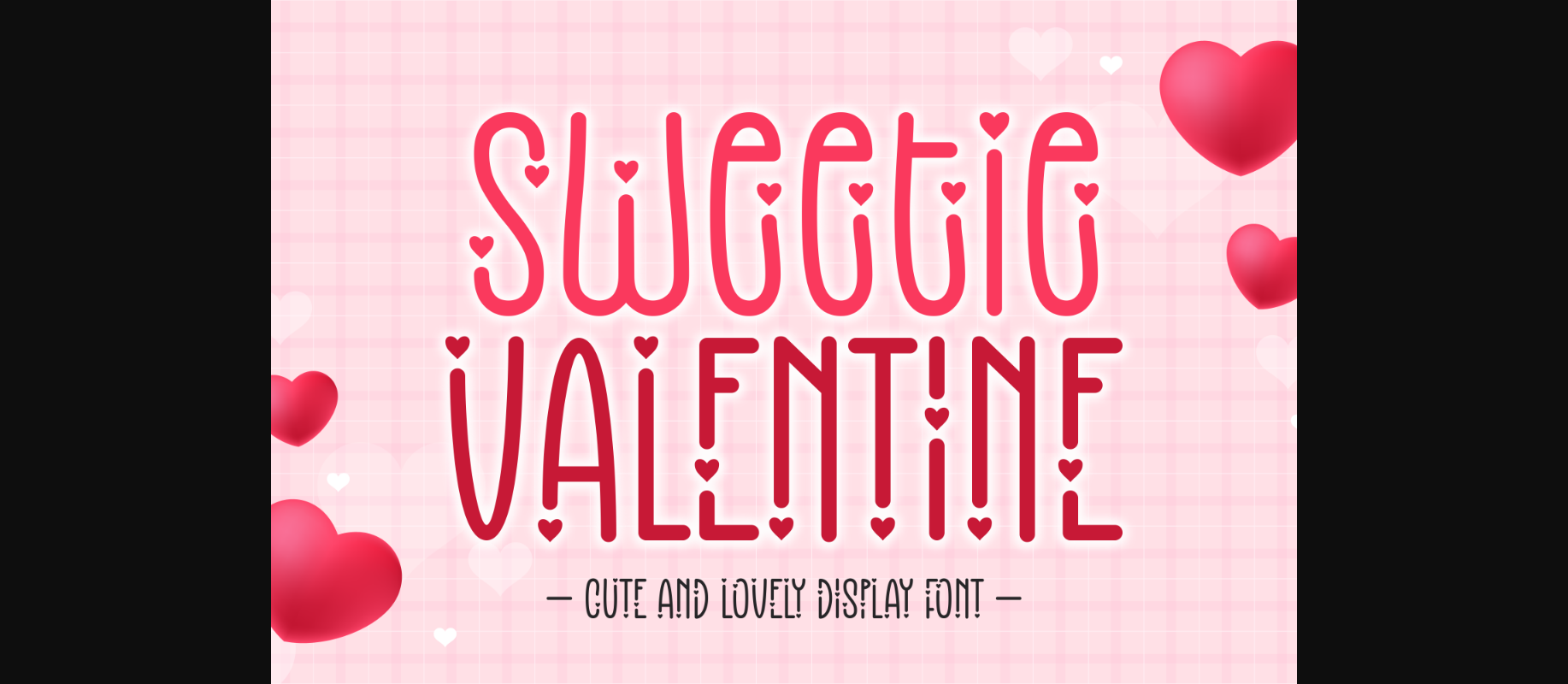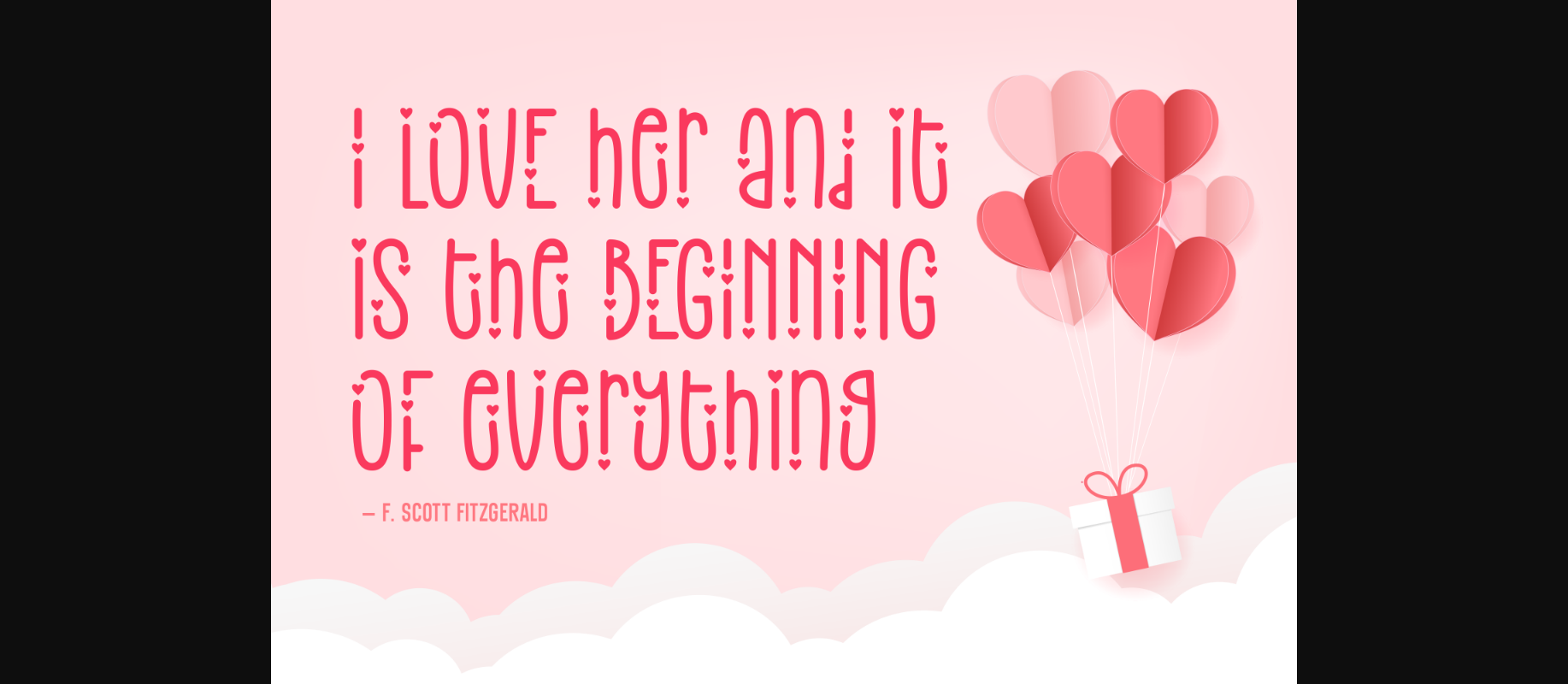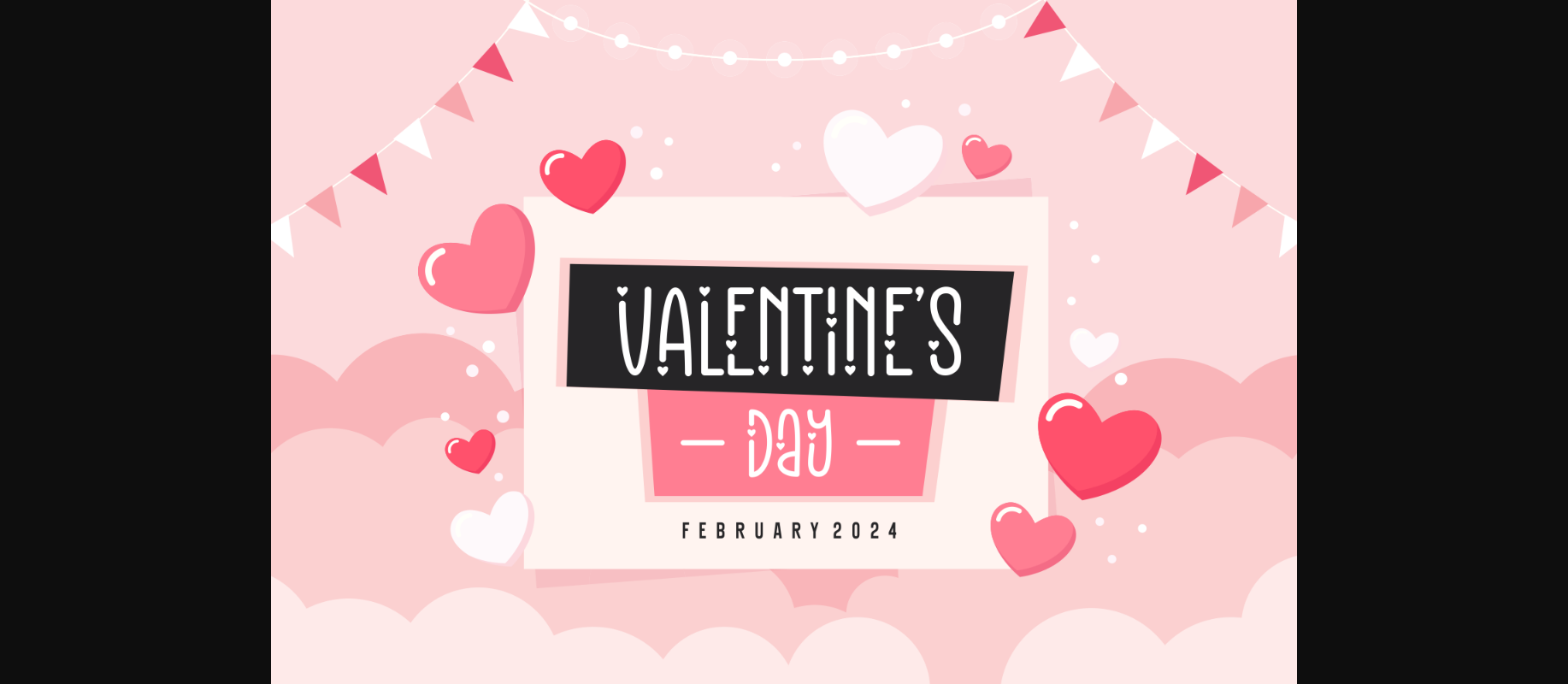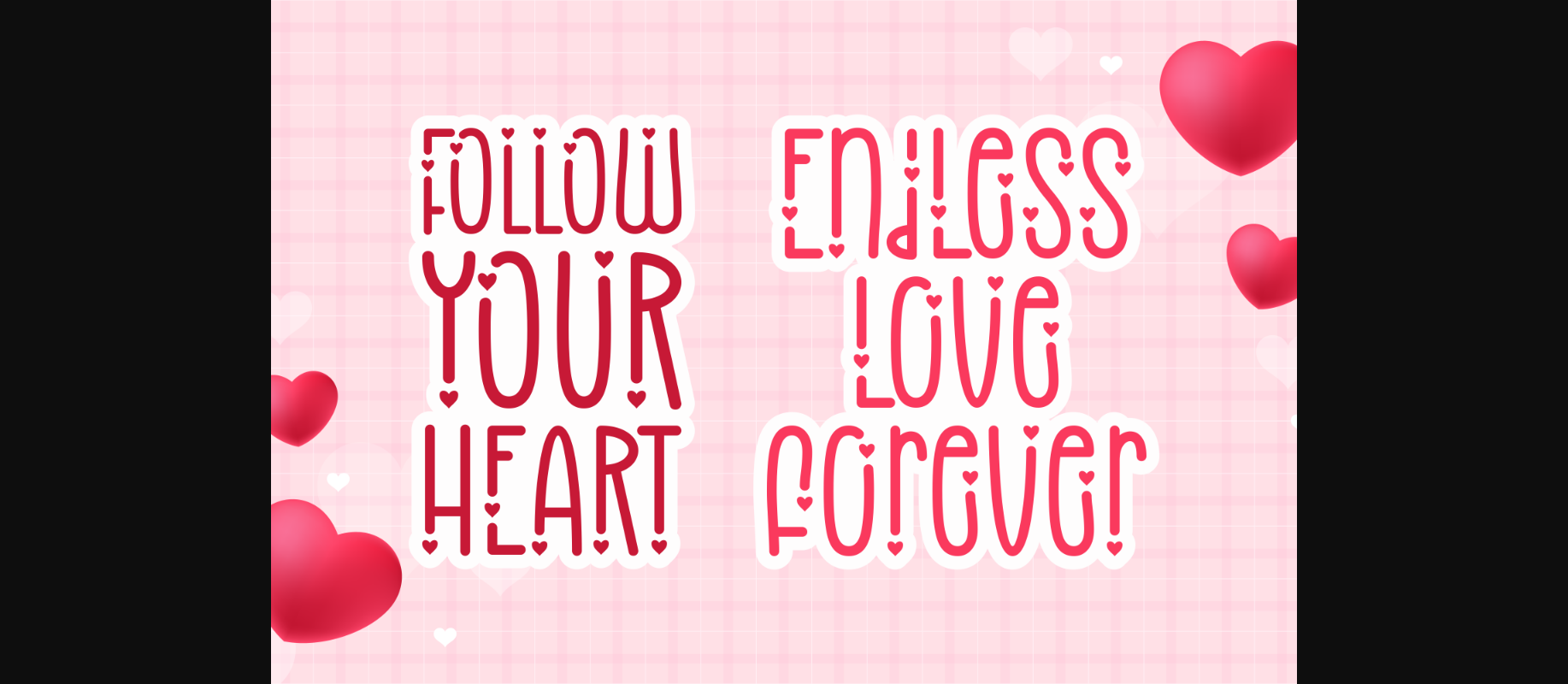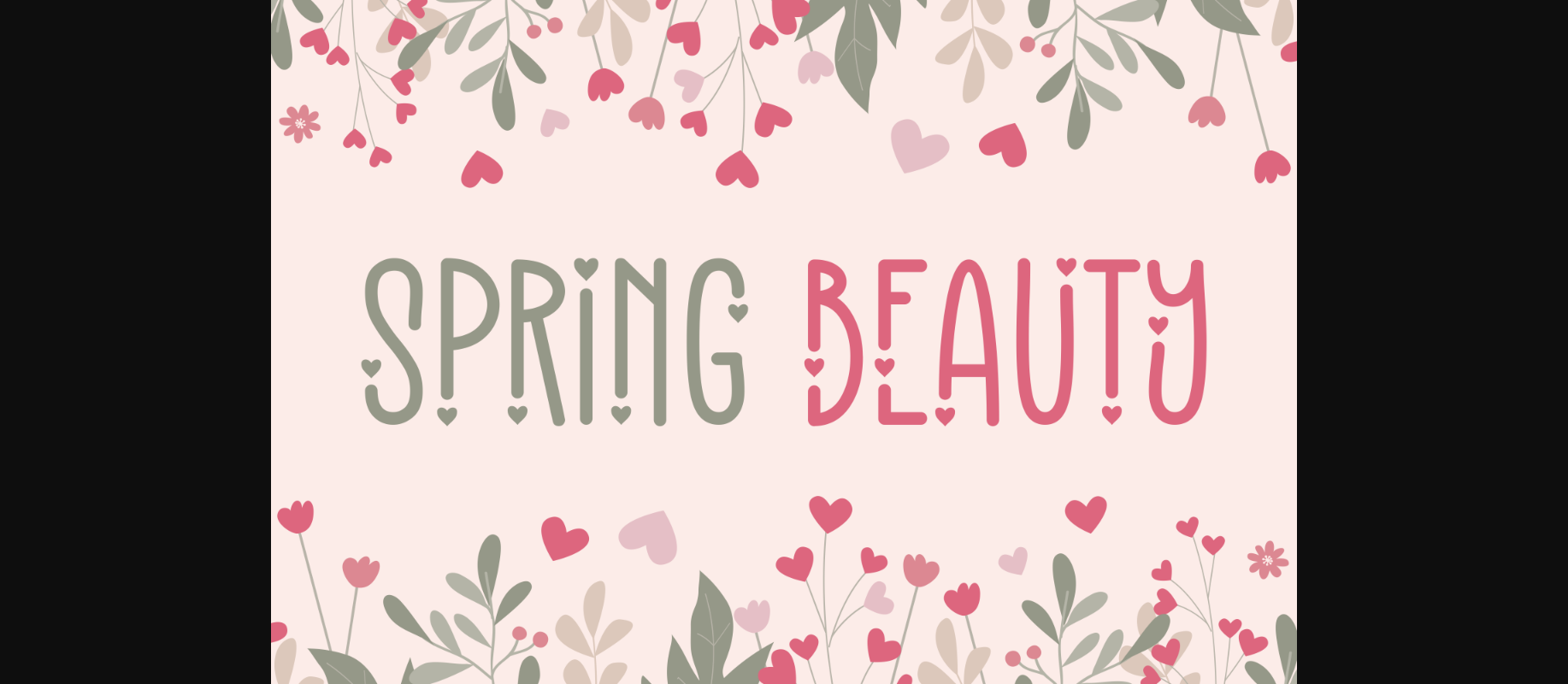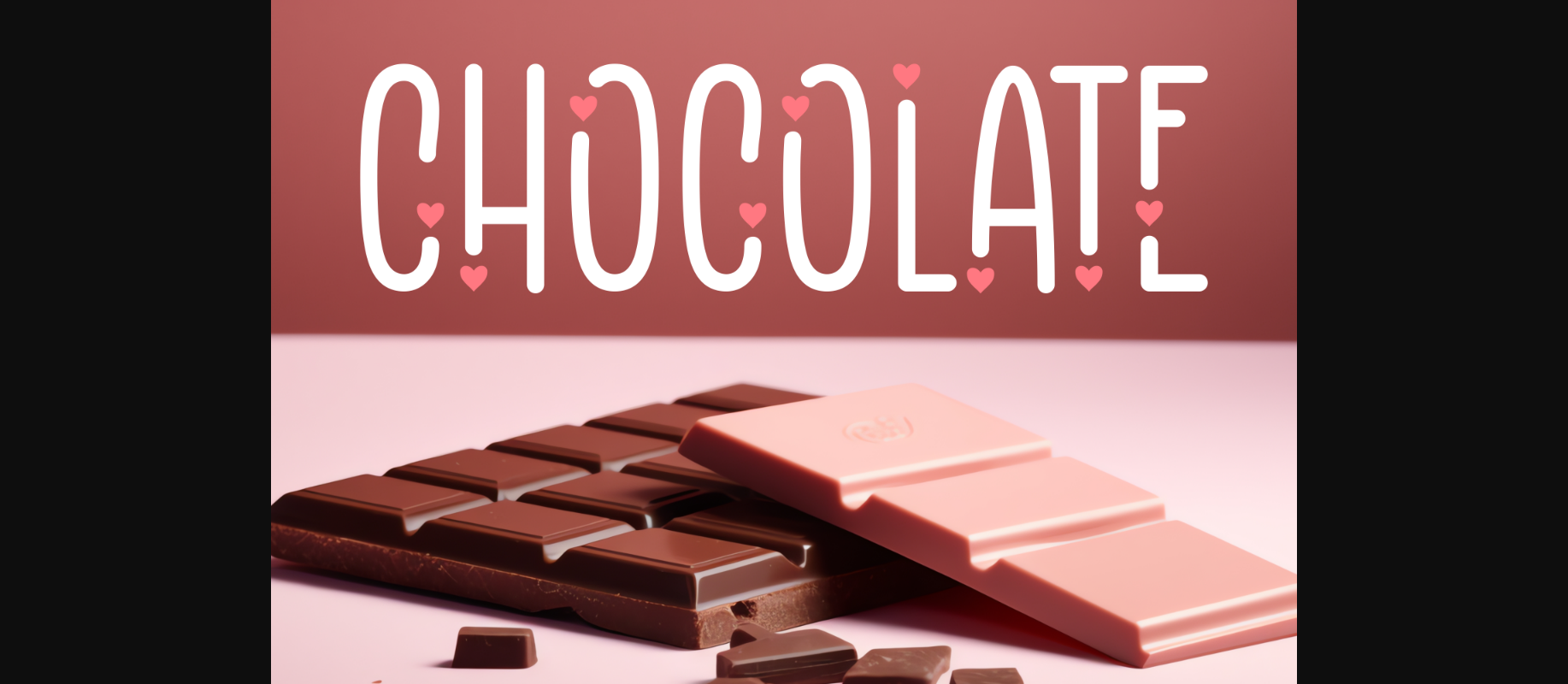
About Sweetie Valentine Font
Sweetie Valentine is a sweet and lovable display font adorned with charming little hearts. This cute typeface adds a touch of whimsy to your projects, making it perfect for all things delightful and lovely. Sprinkle some charm with Sweetie Valentine, as it effortlessly combines cuteness with a dreamy vibe, bringing a smile to any design.